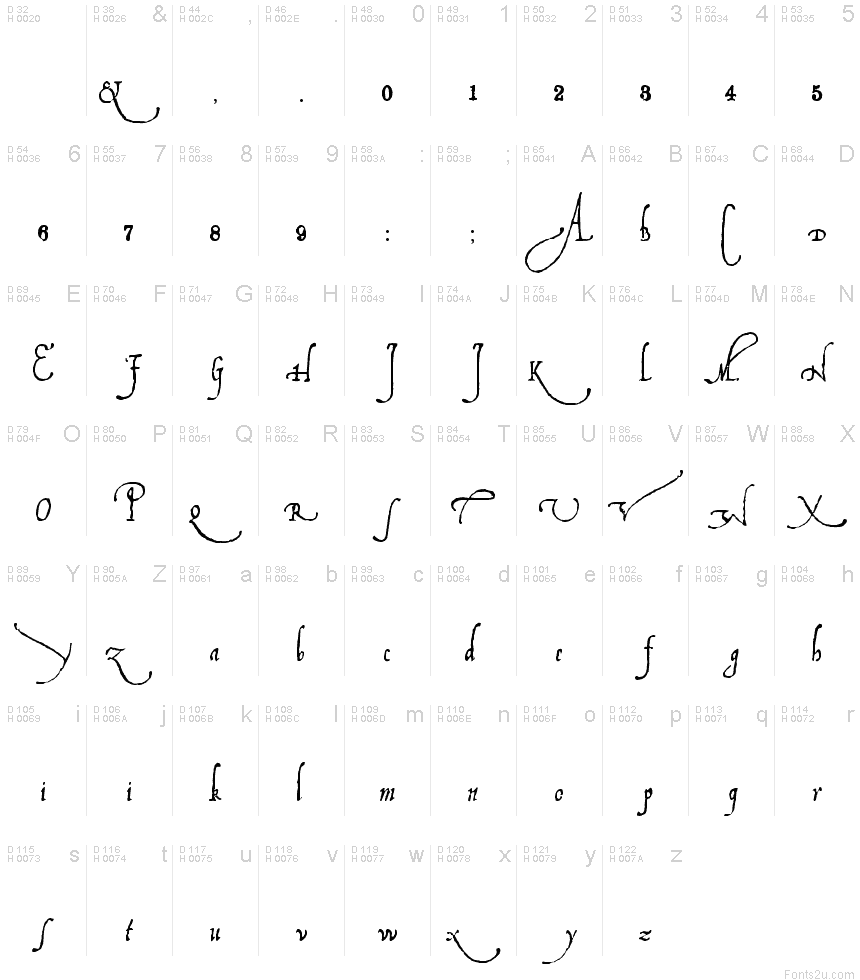
Ludovicos
Ludovicos font by SDFonts is a free handwritten font with long, irregular letterforms and a rough, inked edge that gives each word a quick, personal touch. The shapes feel loosely drawn rather than polished, with uneven curves and narrow joins that keep the rhythm casual and distinctly handmade.
Ludovicos works well for logos, short quotes, poster titles, product labels, invitations, and craft packaging because its loose pen style brings a human tone without looking overly formal. This free font also suits social media graphics and editorial accents where a handwritten note, signature line, or personal message needs to feel direct and authentic.